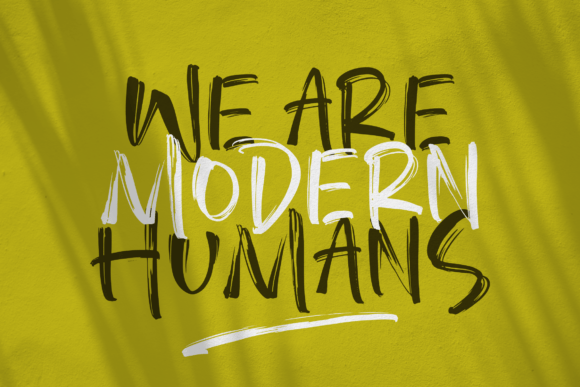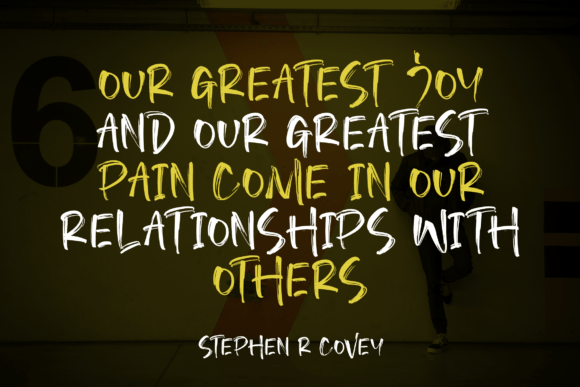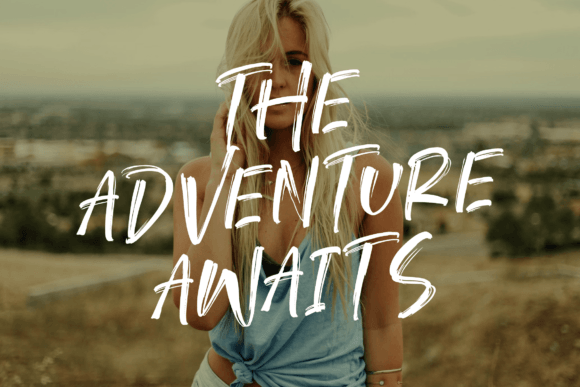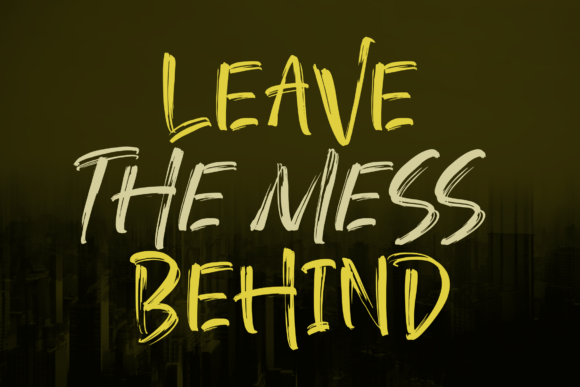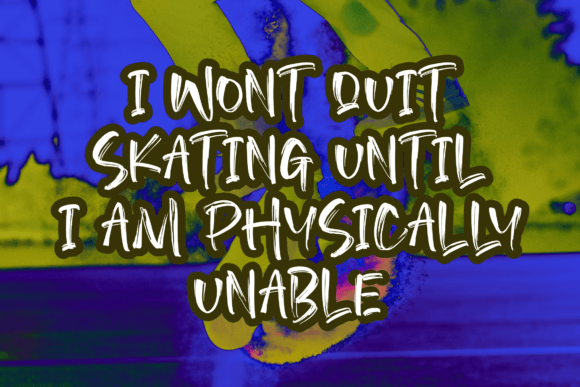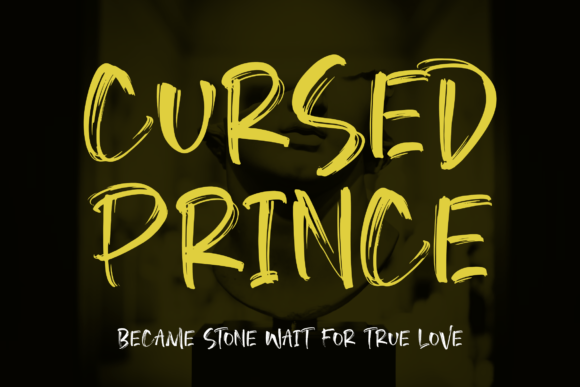
Introducing Hangover Font: The Perfect Handwritten Brush Script for Your Creative Projects
Are you tired of using the same old fonts for your greeting cards, invitations, and motivational quotes? Look no further! Hangover Font is a beautiful handwritten brush script font that will add a personal touch to your designs. With its unique marker board-inspired look and feel, Hangover Font is perfect for crafters, designers, and anyone looking to add a bit of personality to their work.
What is Hangover Font?
Hangover Font is a carefully crafted handwritten brush script font that mimics the look and feel of writing on a marker board. Its unique texture and fluid strokes give it a natural, effortless feel that’s perfect for a wide range of creative projects. Whether you’re designing greeting cards, invitations, or social media graphics, Hangover Font is sure to make your work stand out.
Key Features of Hangover Font
- Handwritten brush script: Hangover Font is a true handwritten brush script font, with each letter and character carefully crafted to mimic the look and feel of writing on a marker board.
- Marker board-inspired texture: The font’s unique texture gives it a natural, organic feel that’s perfect for creating authentic and engaging designs.
- Perfect for greeting cards and invitations: Hangover Font is ideal for creating beautiful and personalized greeting cards, invitations, and other paper crafts.
- Great for motivational quotes: The font’s bold and expressive style makes it perfect for creating inspiring and motivational quotes that will resonate with your audience.
Why Choose Hangover Font?
With so many fonts to choose from, why should you choose Hangover Font for your creative projects? Here are just a few reasons:
- Unique and eye-catching: Hangover Font is a truly unique and eye-catching font that will make your designs stand out from the crowd.
- Easy to read: Despite its bold and expressive style, Hangover Font is surprisingly easy to read, making it perfect for creating designs that need to communicate a message.
- Versatile: Hangover Font can be used for a wide range of creative projects, from greeting cards and invitations to social media graphics and more.
- High-quality: Hangover Font is a high-quality font that’s been carefully crafted to ensure that it looks great in any design.
How to Use Hangover Font in Your Designs
Using Hangover Font in your designs is easy! Here are a few tips to get you started:
- Pair it with a simple background: Hangover Font looks best when paired with a simple background that won’t compete with the font’s bold and expressive style.
- Experiment with colors: Hangover Font looks great in a wide range of colors, so don’t be afraid to experiment and find the perfect color for your design.
- Use it for headings and titles: Hangover Font is perfect for creating bold and eye-catching headings and titles that will grab your audience’s attention.
- Add some texture: Consider adding some texture to your design to give it a more organic and natural feel that complements Hangover Font.